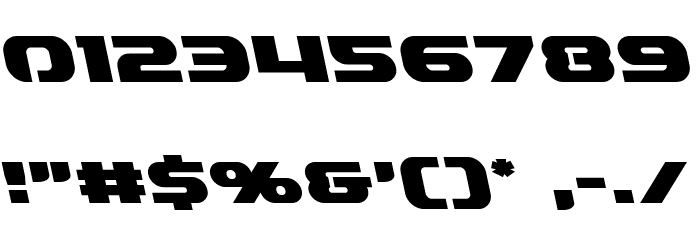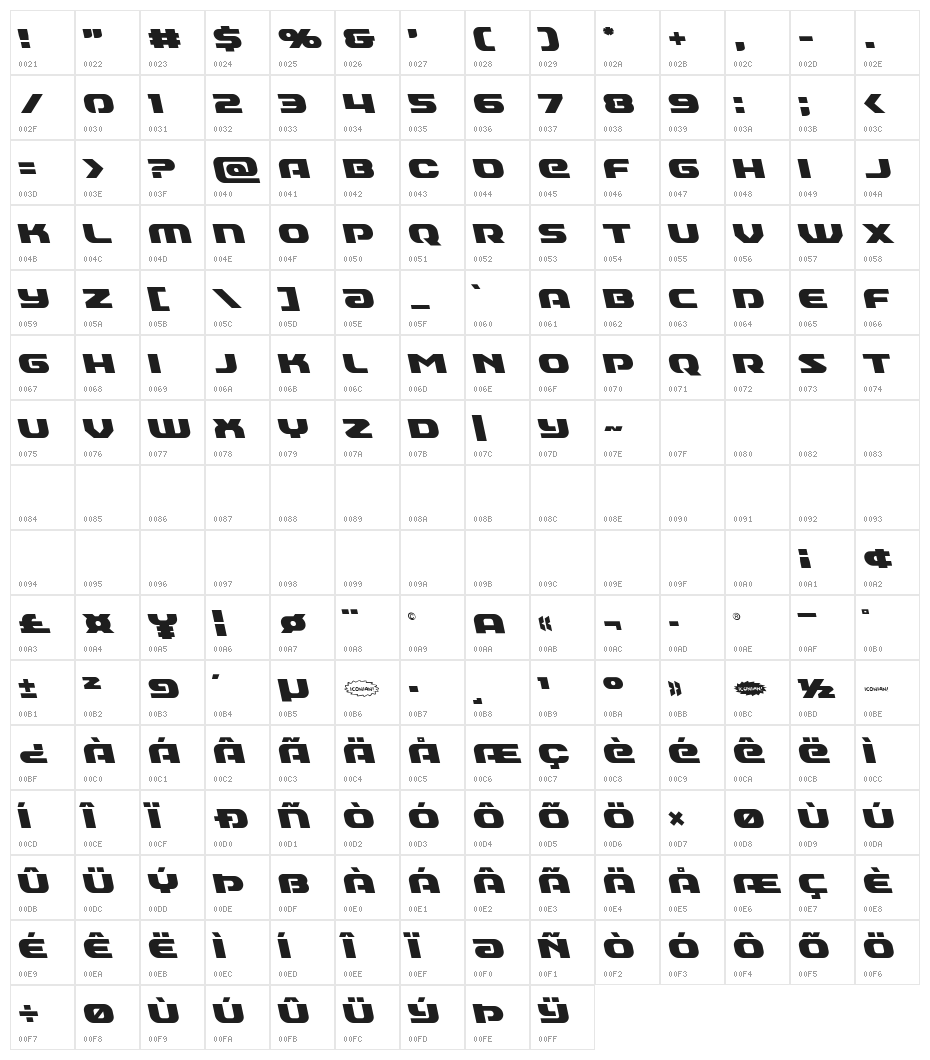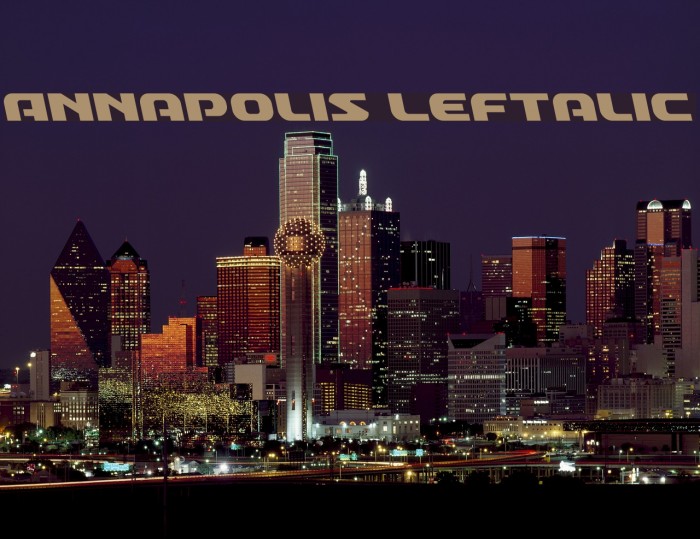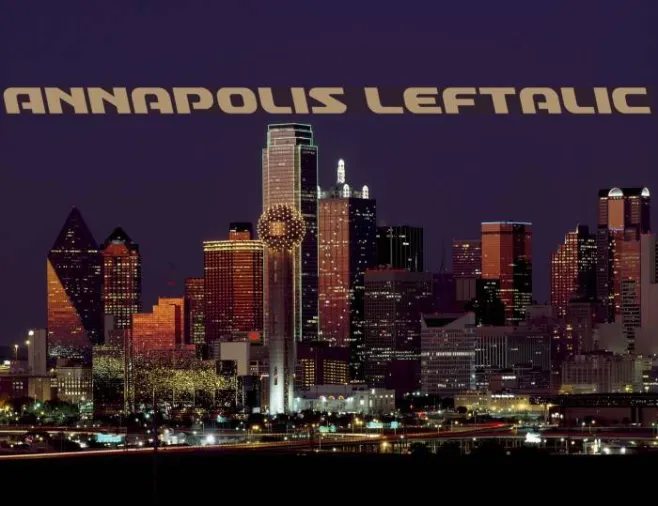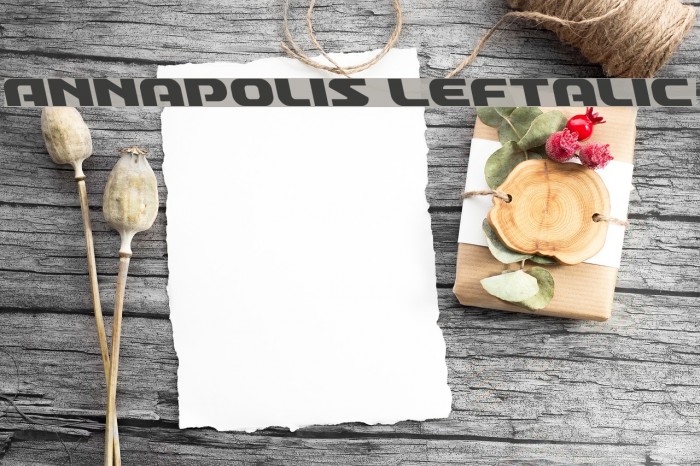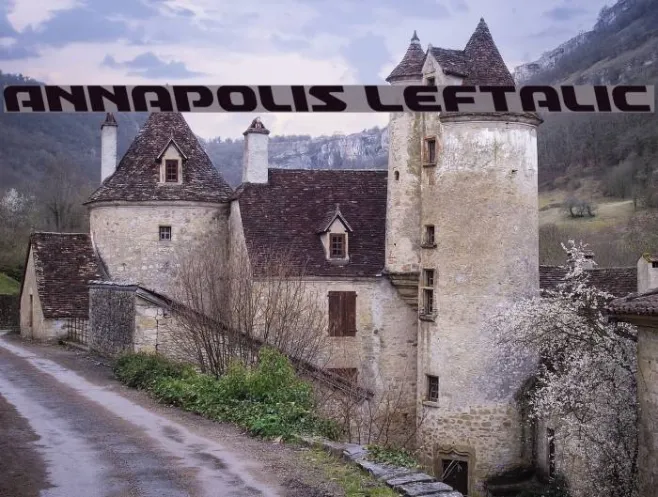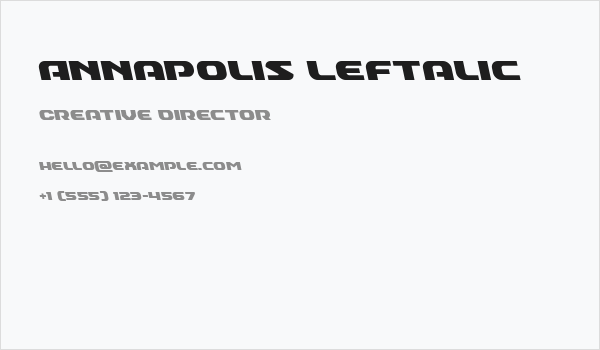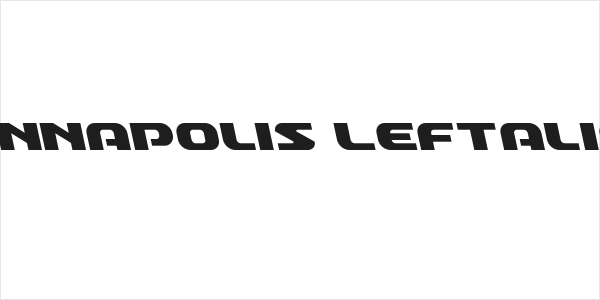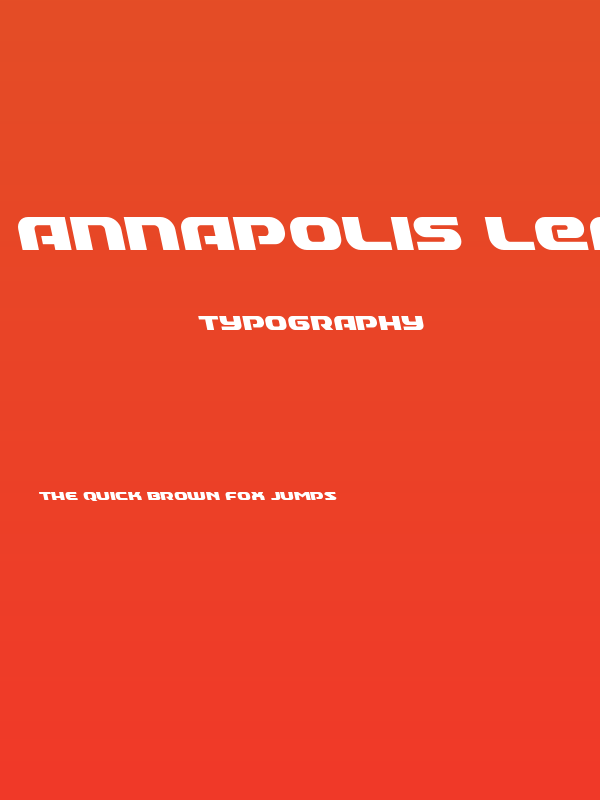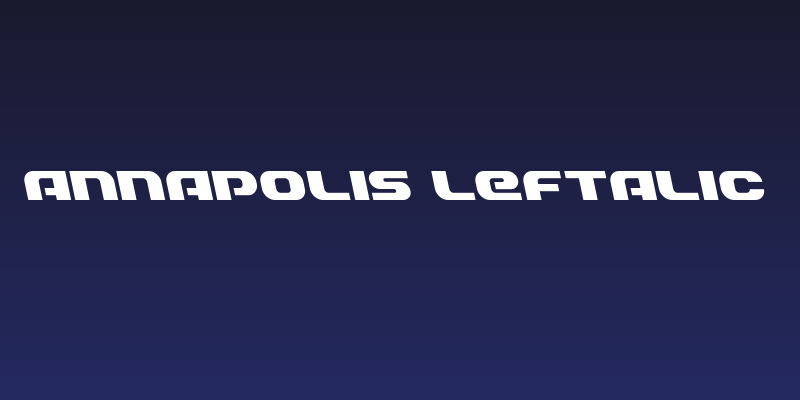
Annapolis Leftalic Font
Annapolis Leftalic Description
This font features a bold and dynamic design with a distinct slant to the left, giving it a sense of motion and energy. The characters are wide and robust, with a modern, futuristic aesthetic. The uppercase and lowercase letters maintain a consistent style, characterized by thick strokes and angular cuts. The numbers and special characters follow the same bold and slanted design, ensuring uniformity across all glyphs. This font's unique style makes it stand out, suitable for projects that require a strong visual impact.
Proposed ProjectsIdeal for sports branding, futuristic designs, tech-related projects, and eye-catching headlines.